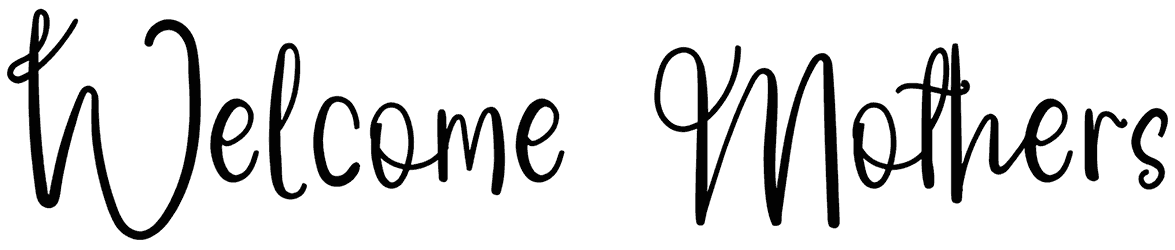
Welcome Mothers Font
We believe adding a bit of personalization to artwork, including business cards, wedding invitations, magazines, or flyers, would boost their efficiency. if you have the same opinion, we would like to offer a lovely script font such as Welcome Mothers to you.
It comes with a cursive style and flowing texture, so you can easily bring a sense of delicacy, precision, respect, and authenticity to your graphic project.